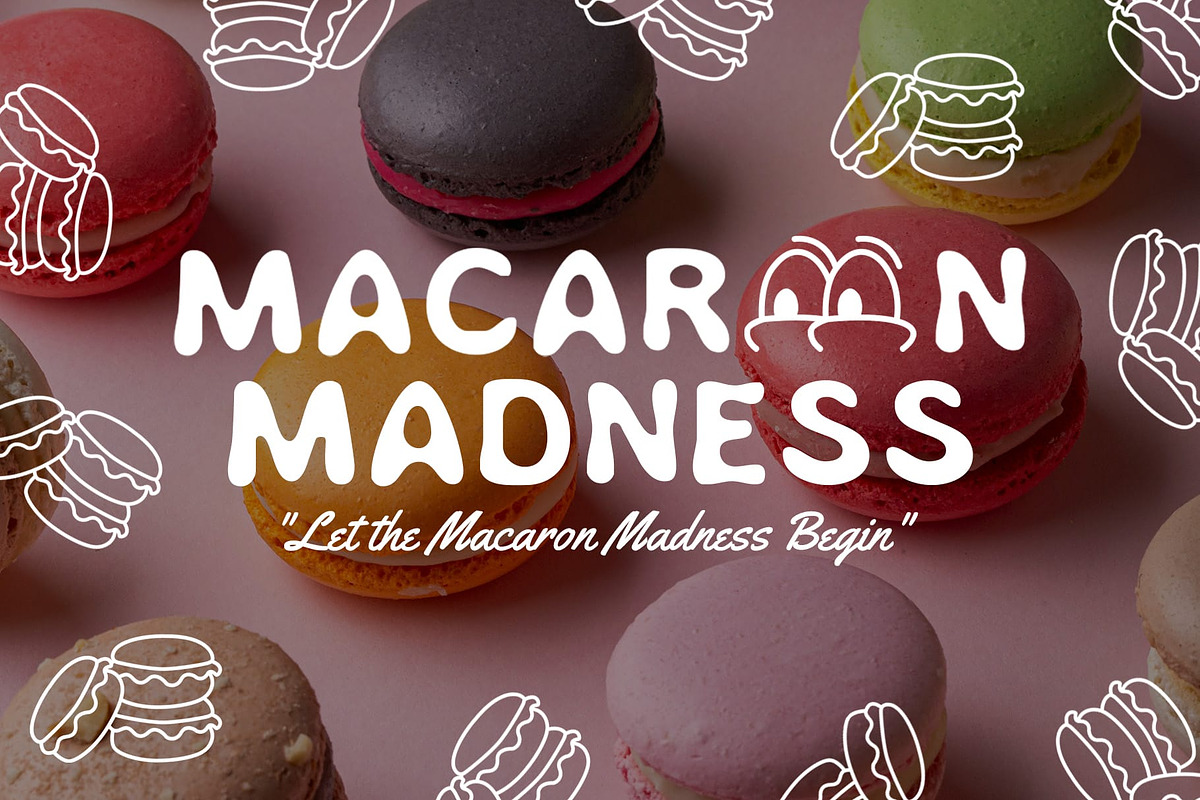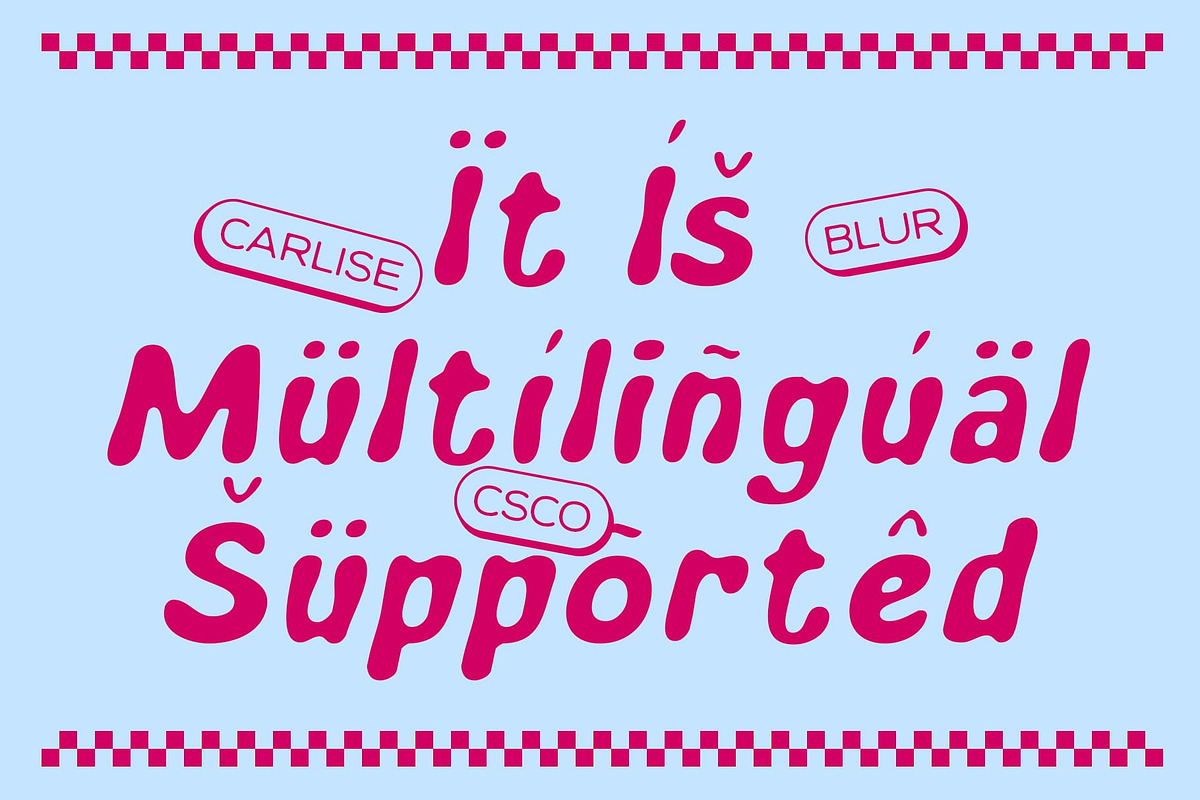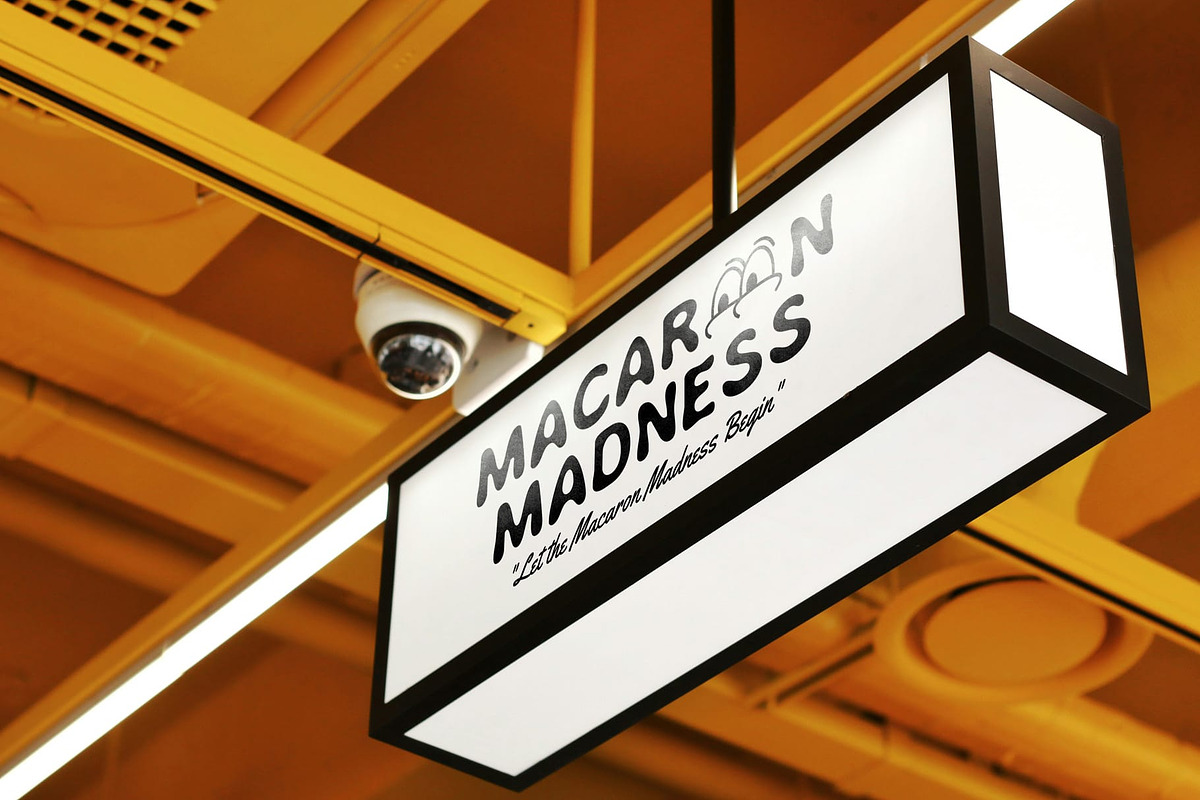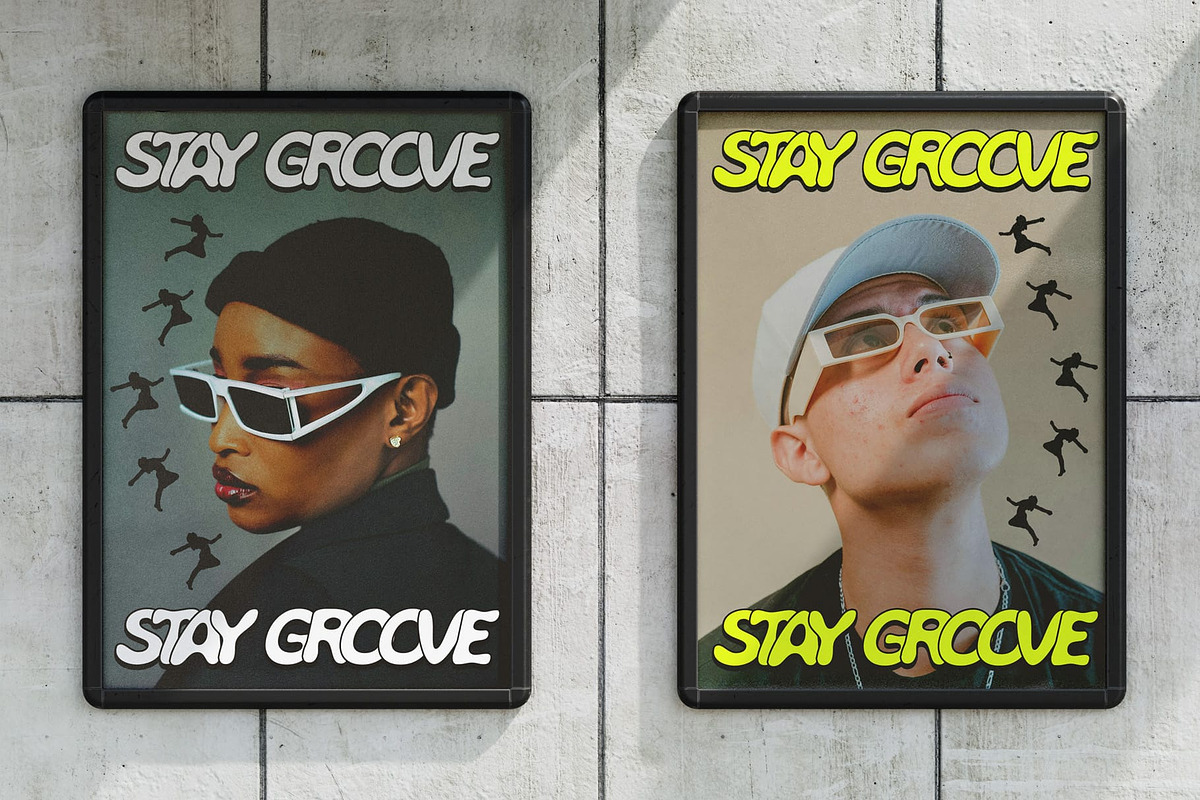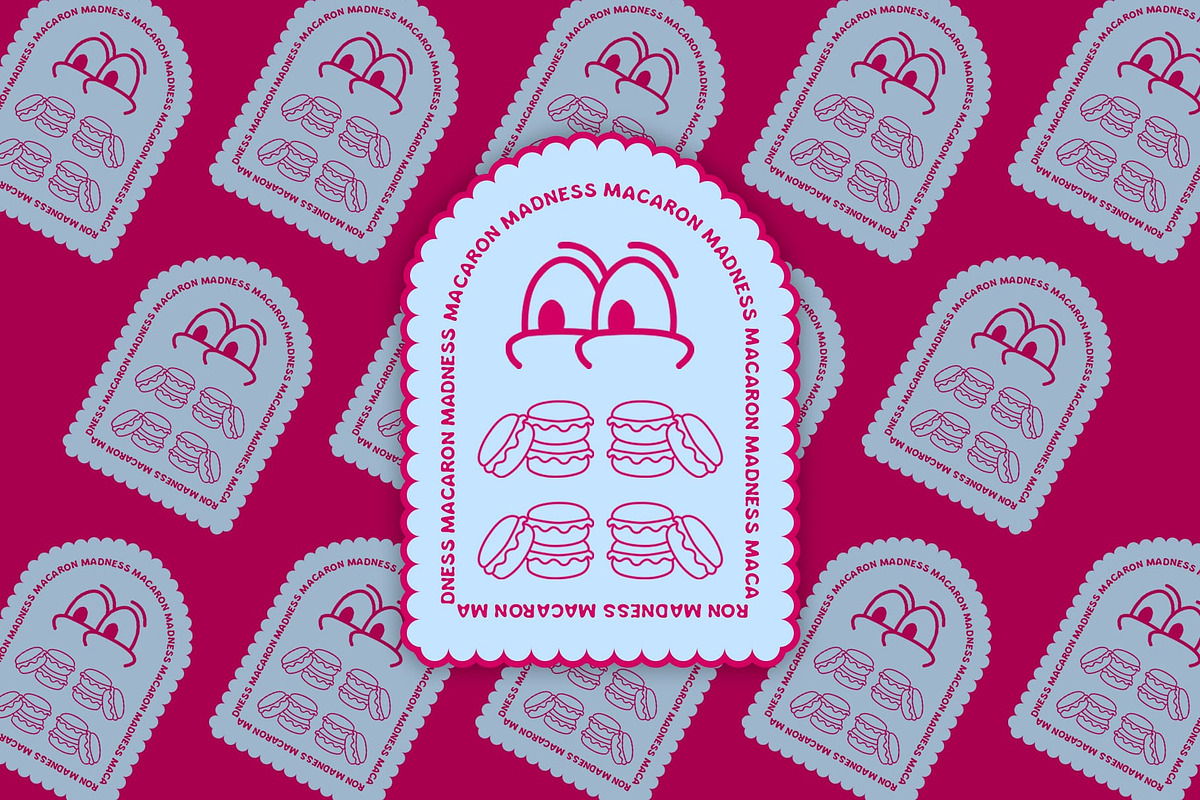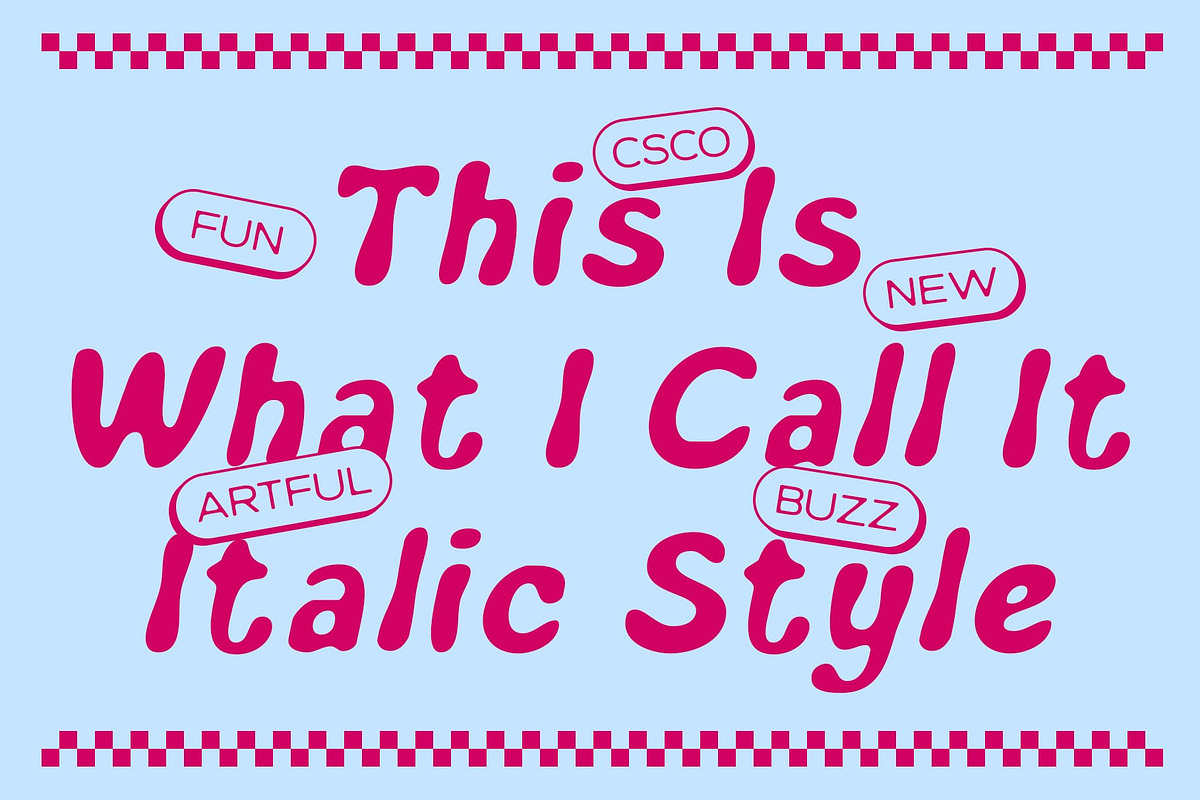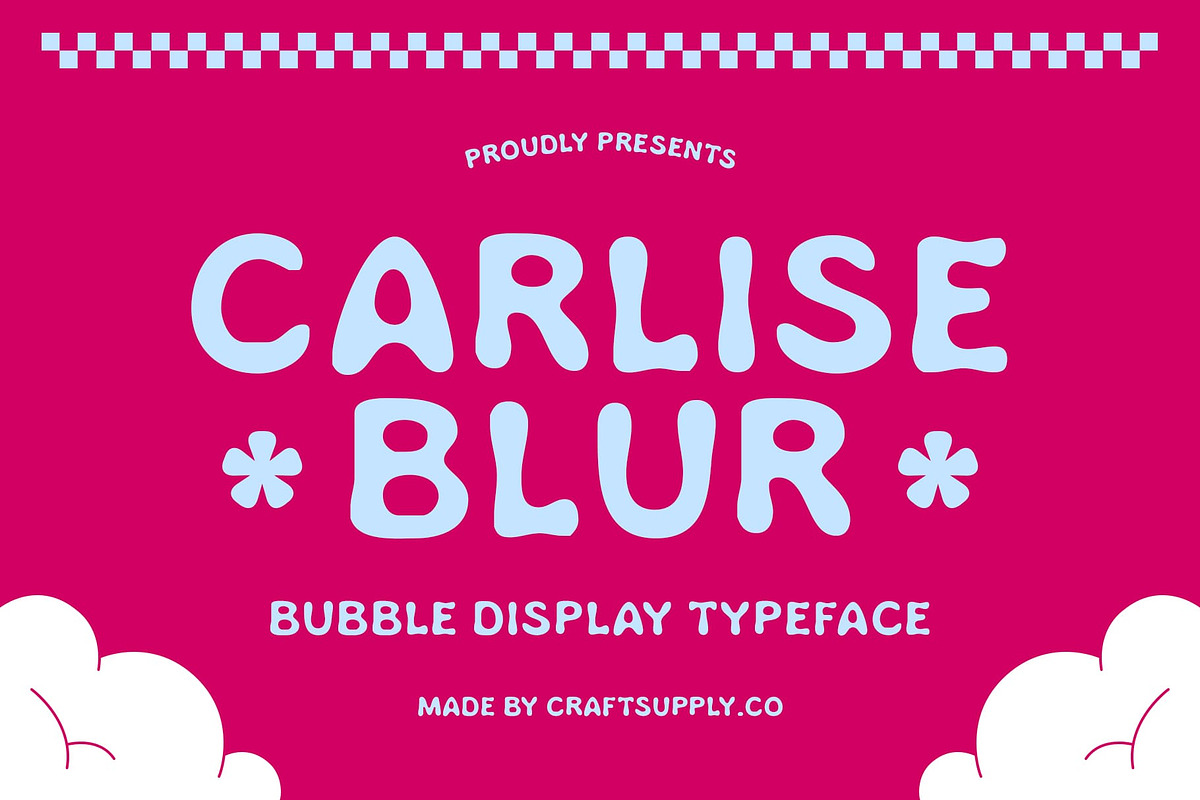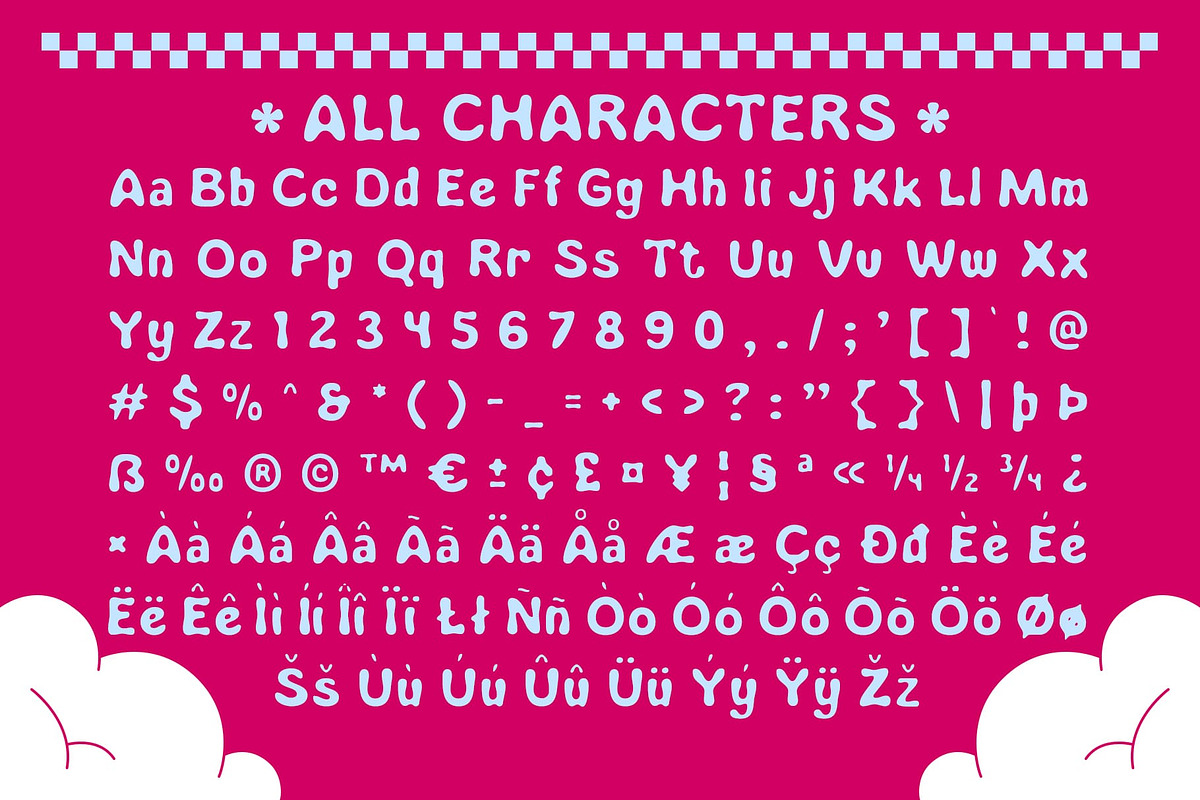
Carlise Blur
Carlise Blur Font: Fun, Playful, and Full of Personality
Bubble-Shaped Display Font with a Cute and Cheerful Vibe Carlise Blur is a bubble-shaped display font that radiates a fun, funky, and playful energy. With its round, adorable letterforms, this font creates a lighthearted and joyful impression, making it perfect for designs that aim to bring smiles and excitement. The rounded, puffed-up shapes offer a friendly and approachable feel, ideal for playful branding or vibrant event promotions.
Blur Effect for Dimension and Soft Texture The blur effect applied to Carlise Blur adds depth and dimension to its already bubbly appearance. The soft, textured look gives the font a sense of fantasy and movement, making it stand out with a dreamy, whimsical quality. This subtle but effective addition transforms the font into something more than just playful—it’s imaginative and captivating, adding a unique flair to any design.
Perfect for Event Posters, Album Covers, and Children’s Designs Carlise Blur is designed for creative projects that aim to capture attention and evoke a sense of fun and happiness. Whether it’s an event poster, album cover, or children’s product design, this font ensures a cheerful, memorable look that resonates with audiences of all ages. Its playful shapes and soft blur create a whimsical atmosphere that’s ideal for projects where joy and creativity take center stage.
- Carlise Blur Regular
- Carlise Blur Italic